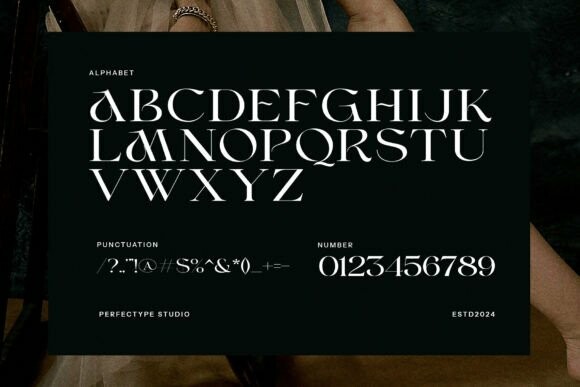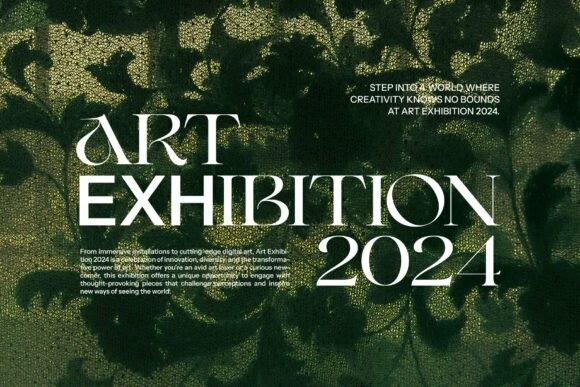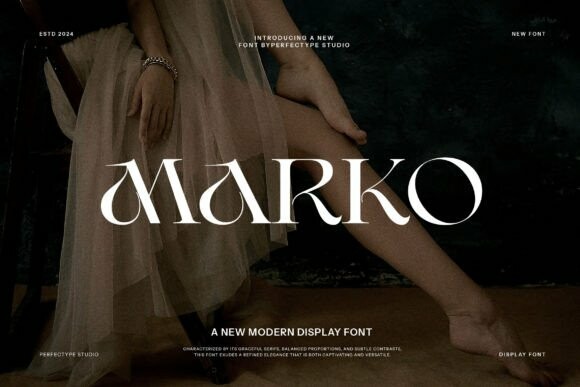
Marko Typeface
Designer: Perfectype
Marko Typeface is a stylish and refined serif font with clean lines and a contemporary look. It combines classic elegance with modern simplicity, making it perfect for chic and professional designs.